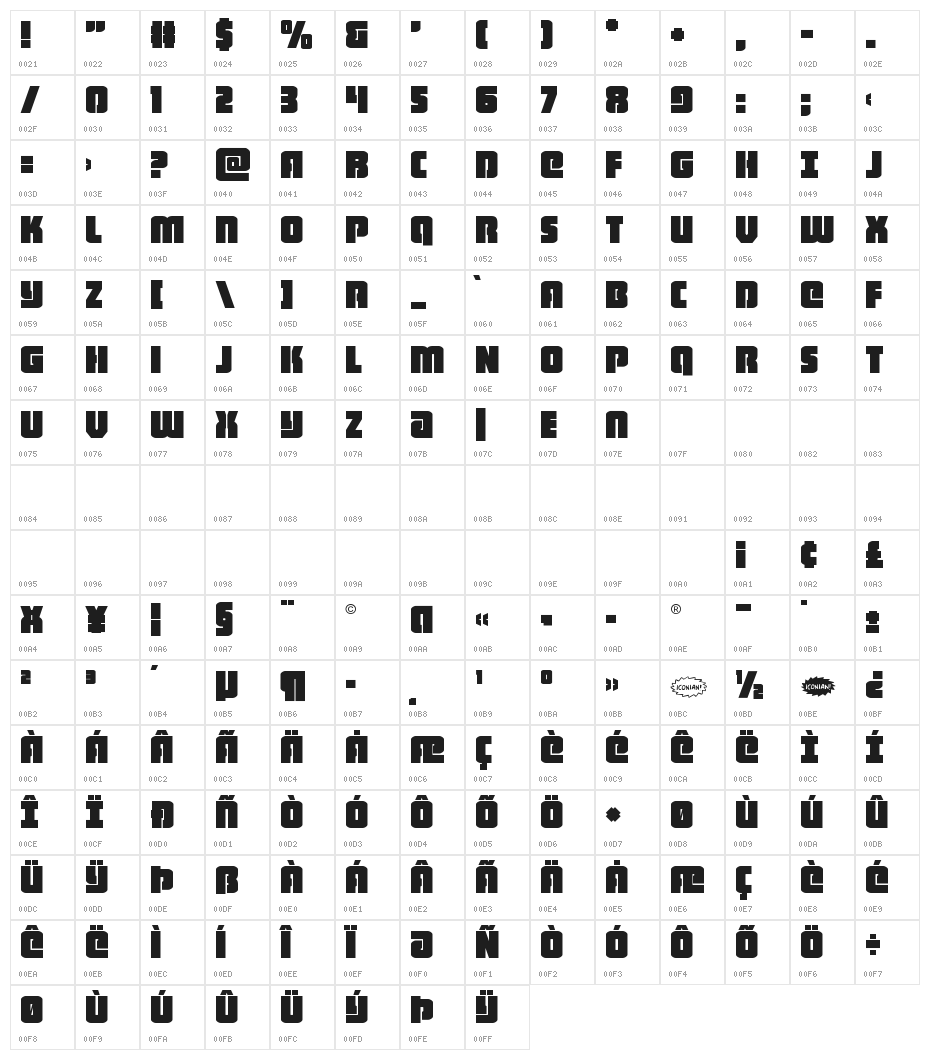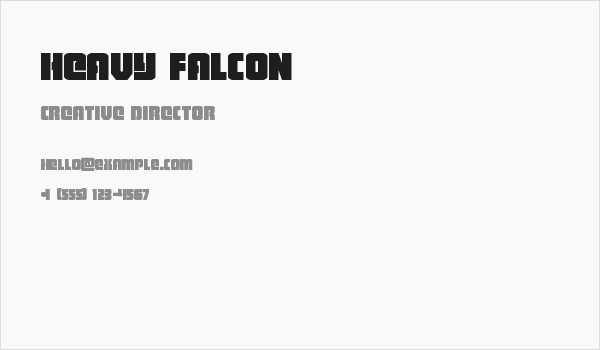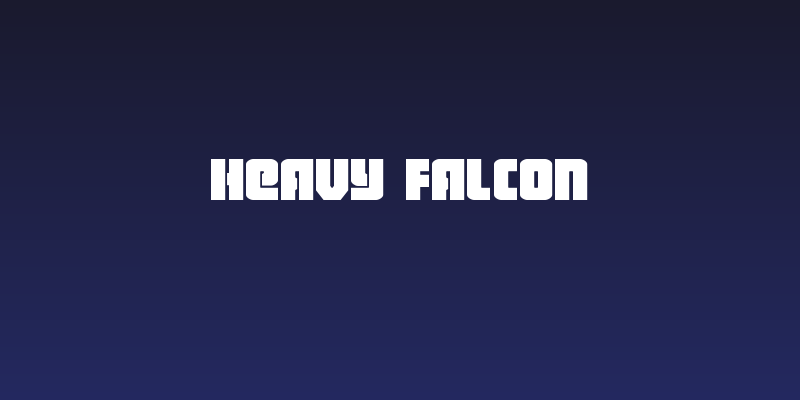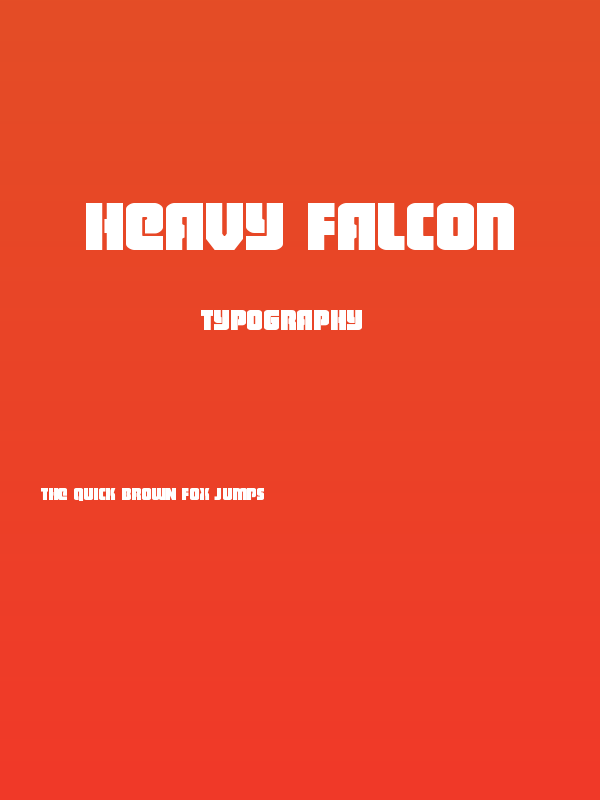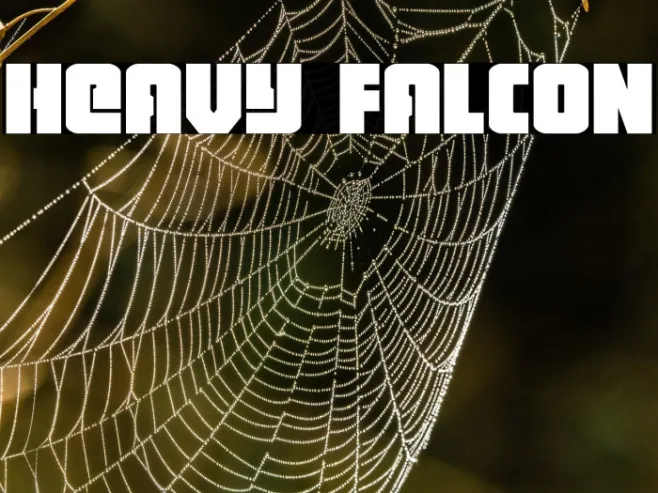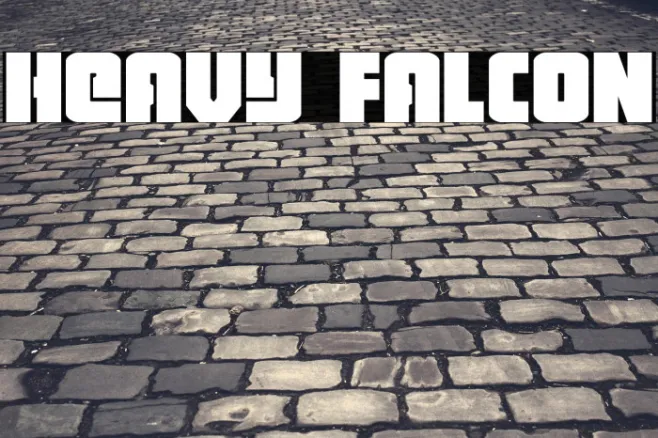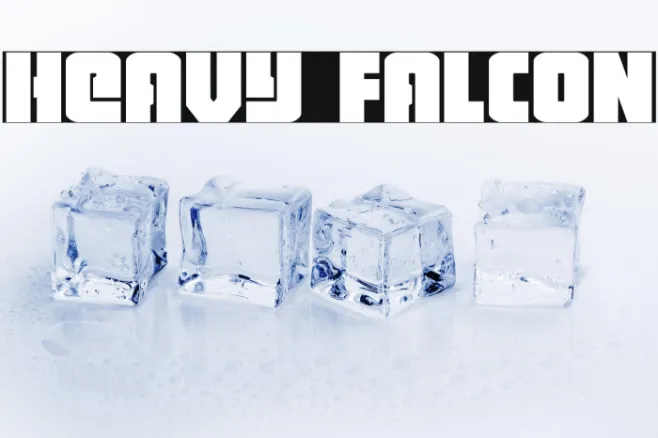
Heavy Falcon Font
Heavy Falcon Description
This font is a bold, geometric display typeface with a strong presence. The characters are blocky and robust, featuring sharp angles and a uniform thickness throughout. The uppercase and lowercase letters maintain a consistent style, emphasizing a modern and industrial aesthetic. The numbers and special characters follow the same design principles, ensuring a cohesive look across all glyphs. This font's heavy weight and solid structure make it ideal for impactful headlines and attention-grabbing designs.
| Proposed Projects | Ideal for posters, logos, branding, and any design requiring a strong, impactful typeface. |